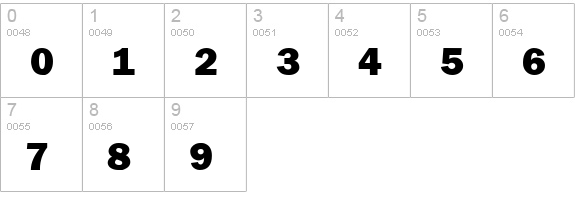
Francis Gothic Normal is the standard, neutral variant in the Francis typeface family \xE2\x80\x94 well suited to general body text, paragraphs, and standard typographic work.
The Francis Gothic Normal font is a timeless and versatile typeface that combines classic elegance with a modern twist. Its clean lines and balanced proportions make it perfect for a wide range of design projects, from branding to editorial design. The font exudes a sense of sophistication and refinement, making it ideal for conveying a sense of professionalism and style. What sets the Francis Gothic Normal font apart is not only its striking aesthetic appeal but also its accessibility - it is available for free download at FontsMarket.com. This means that designers and creatives can easily access and utilize this beautiful font in their projects without any cost, making it a valuable resource for anyone looking to elevate their designs with a touch of elegance. With its seamless blend of tradition and modernity, the Francis Gothic Normal font is sure to make a lasting impression on any project it graces.